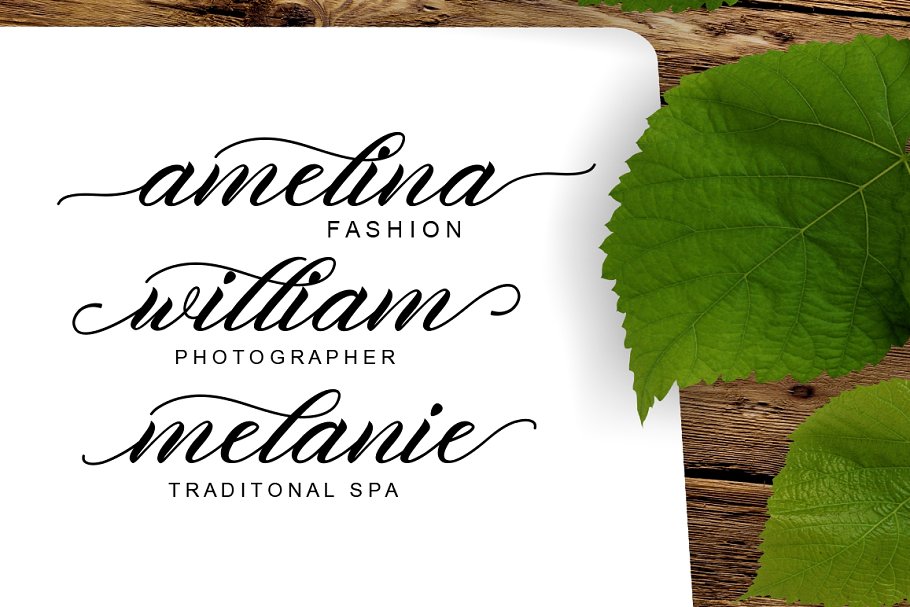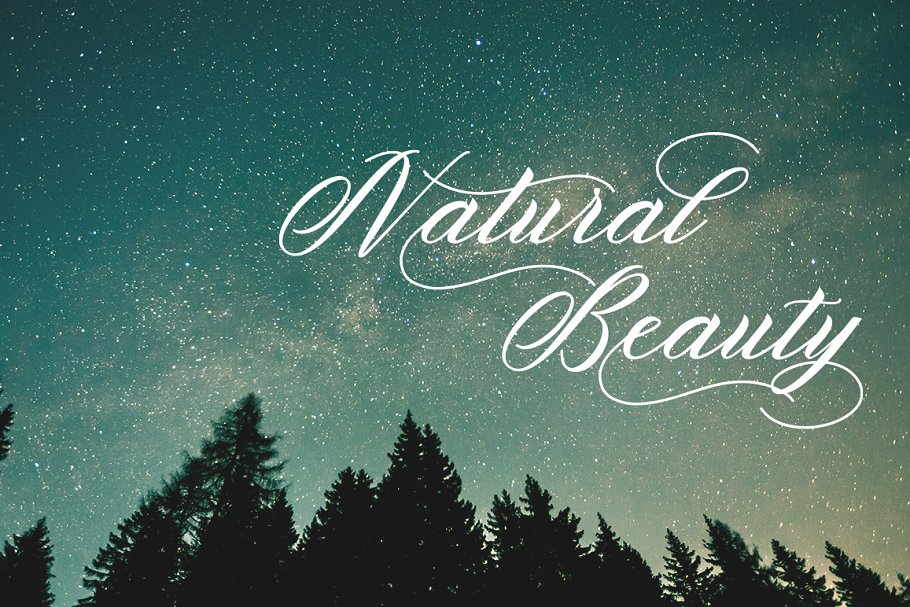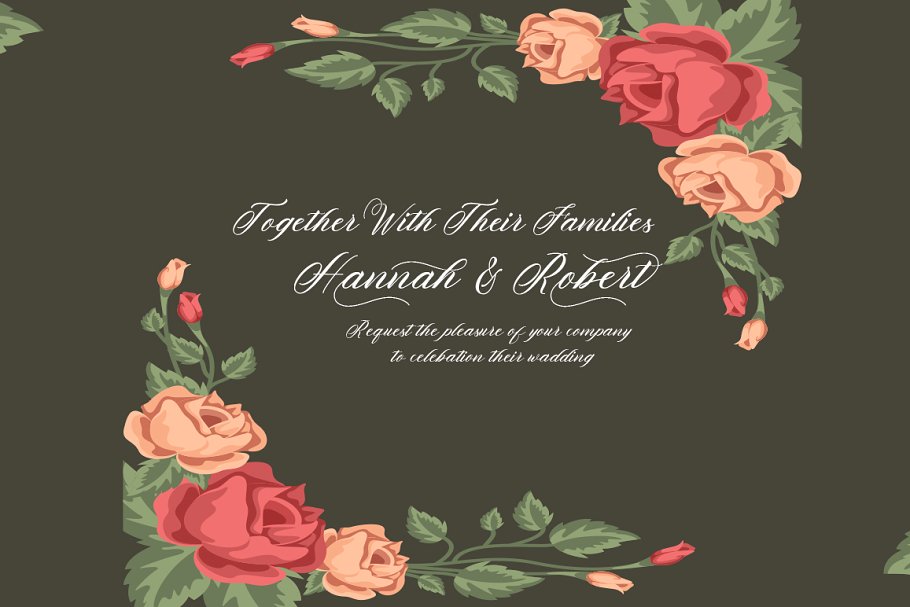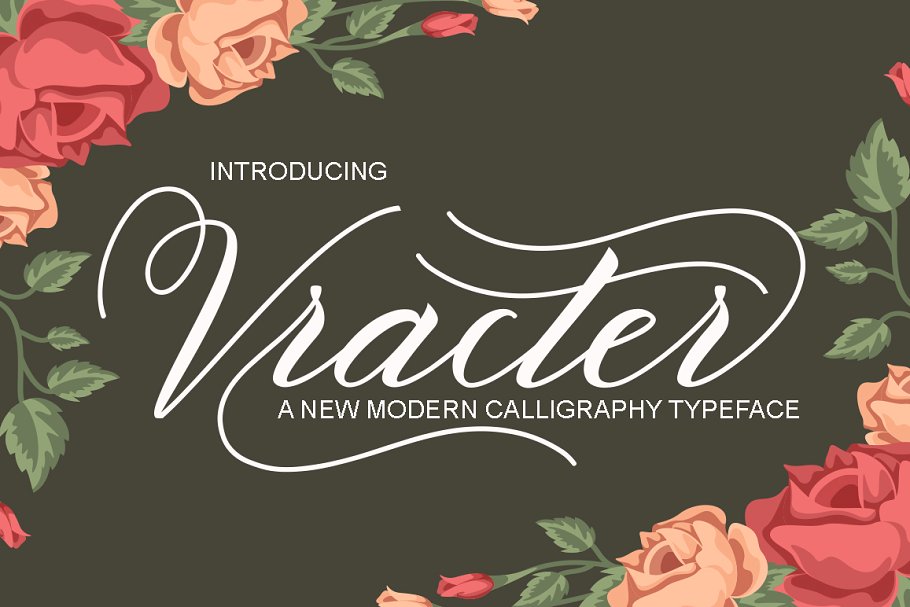
Vracter Script Font
A new fresh handmade calligraphy font, modern swase calligraphy has romantic and modern calligraphy, ready to give your design Fresh and extraordinary style. Introducing Vracter Font. Vracter Font Duo Script is a stylish calligraphy font that features a varying baseline, smooth line, classic and elegant touch. Can be used for various purposes.such as headings, signature, logos, wedding invitation, t-shirt, letterhead, signage, lable, news, posters, badges etc.